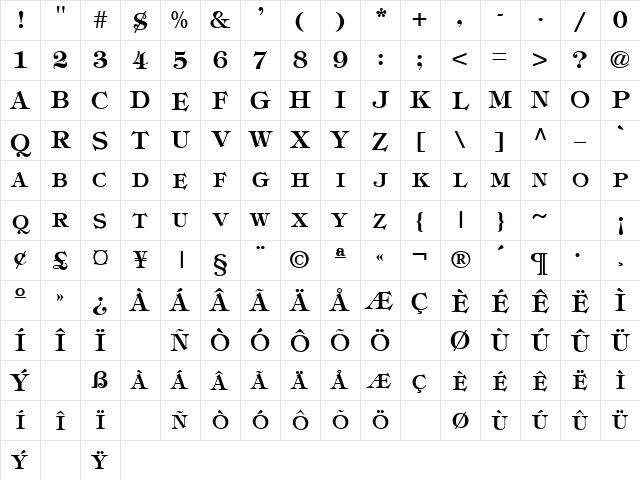
TiffeyExpert is a composed and adaptable typeface that performs quietly and consistently across a wide range of design contexts. Its bold stroke weight gives it real presence on the page.